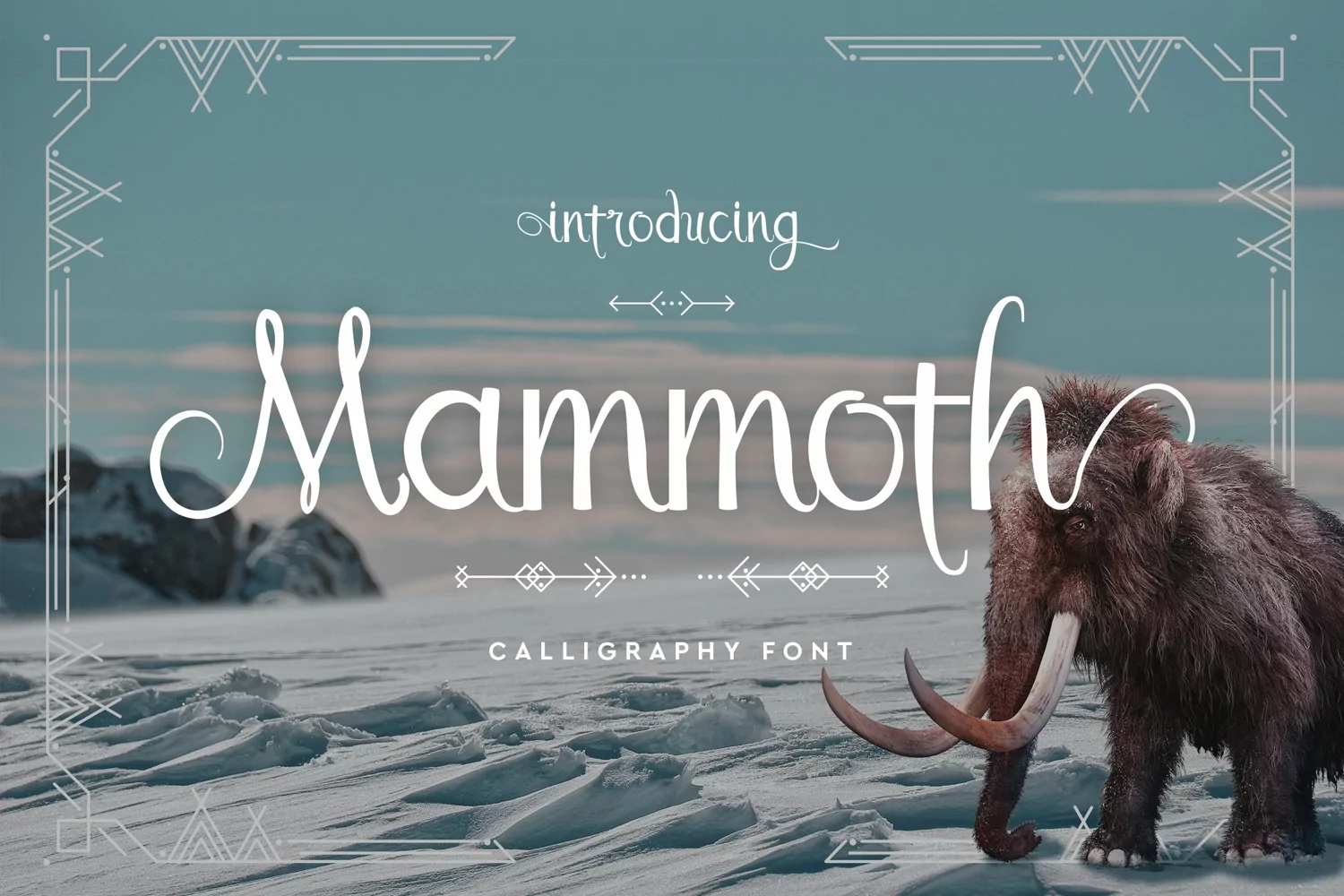
Mammoth is a really fresh and pretty calligraphy script font. It gives a wonderful modern touch to classic calligraphy. It has a feminine charm with a dash of frivolity. This font comes with capital and lowercase letters and a variety of swashes for added distinction and class.